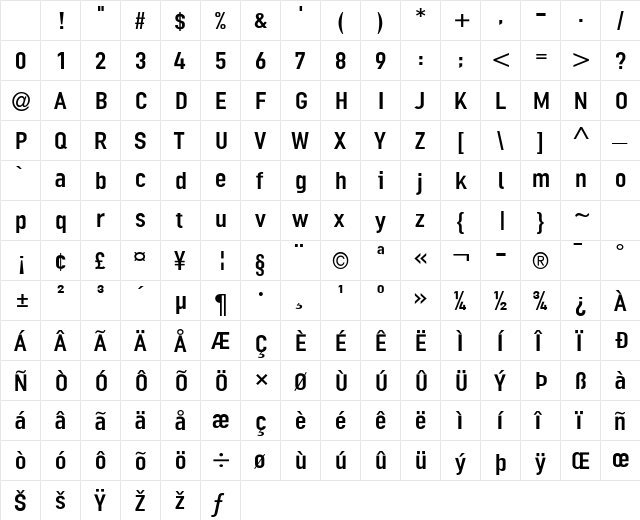
LTOrdinar Regular
Designer: Lutz Baar
Design Context for LTOrdinar
LTOrdinar is a composed and adaptable typeface that performs quietly and consistently across a wide range of design contexts.
Pro Tip: Use LTOrdinar in both headline and body roles to test its range before committing to a single application.